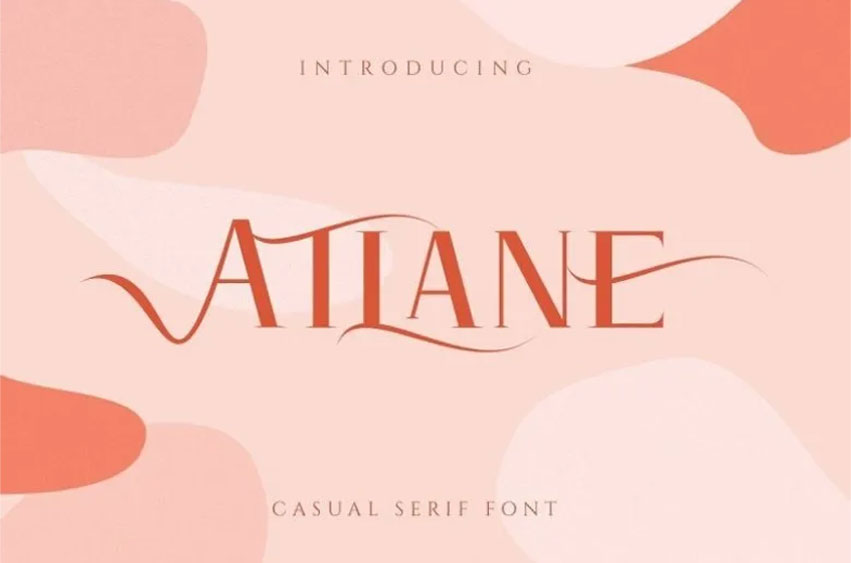
Atlane Font
Atlane Font is a new casual serif font with a modern concept, beautiful swash and ligature that will look good in your designs like personal branding or logos. It is advisable to use a program that has OpenType features and Glyphs panels, for instance, Adobe Illustrator, Adobe Photoshop CC, Adobe InDesign, or CorelDraw in order to view all the available Glyphs.
Atlane is a new casual serif font with a modern concept, beautiful swash and ligature that will look good in your designs like personal branding or logos. It is advisable to use a program that has OpenType features and Glyphs panels, for instance, Adobe Illustrator, Adobe Photoshop CC, Adobe InDesign, or CorelDraw in order to view all the available Glyphs.